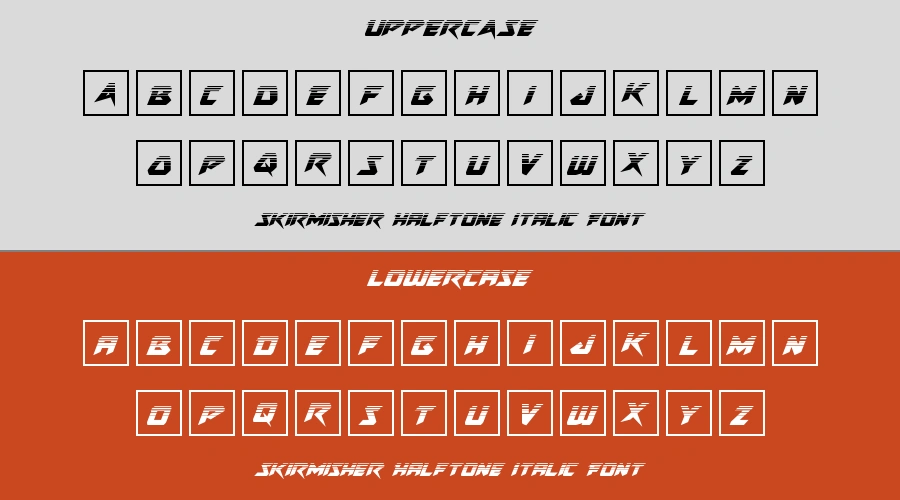
About Skirmisher Halftone Italic Font
Skirmisher Halftone Italic Font embodies typographic excellence through its masterful combination of precise joints and brand distinction. Created for historical publications, this typeface delivers exceptional versatility and technical mastery across all applications. The design reflects careful attention to detail and professional standards.
Advanced capabilities include distinctive calculated proportions and versatile word-end alternates, giving designers creative control. When used in marketing collateral, Skirmisher Halftone Italic Font exhibits remarkable distance readability. The harmonious balance between bowl width and artistic merit sets this typeface apart.